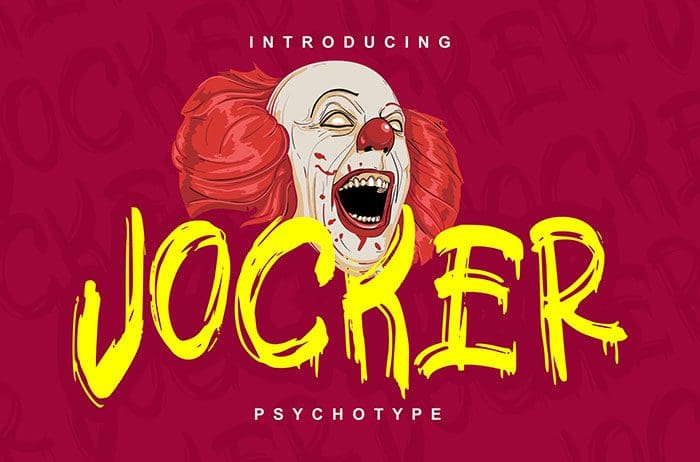
Jocker Decorative Font
Jocker is an unpredictable, bold, and fun decorative font with a crazy vibe. Perfect to use for poster, label, Poster, apparel design, banner, and etc. Thanks to Vunira for sharing this font. Take a look at this portfolio for more of his stunning fonts.